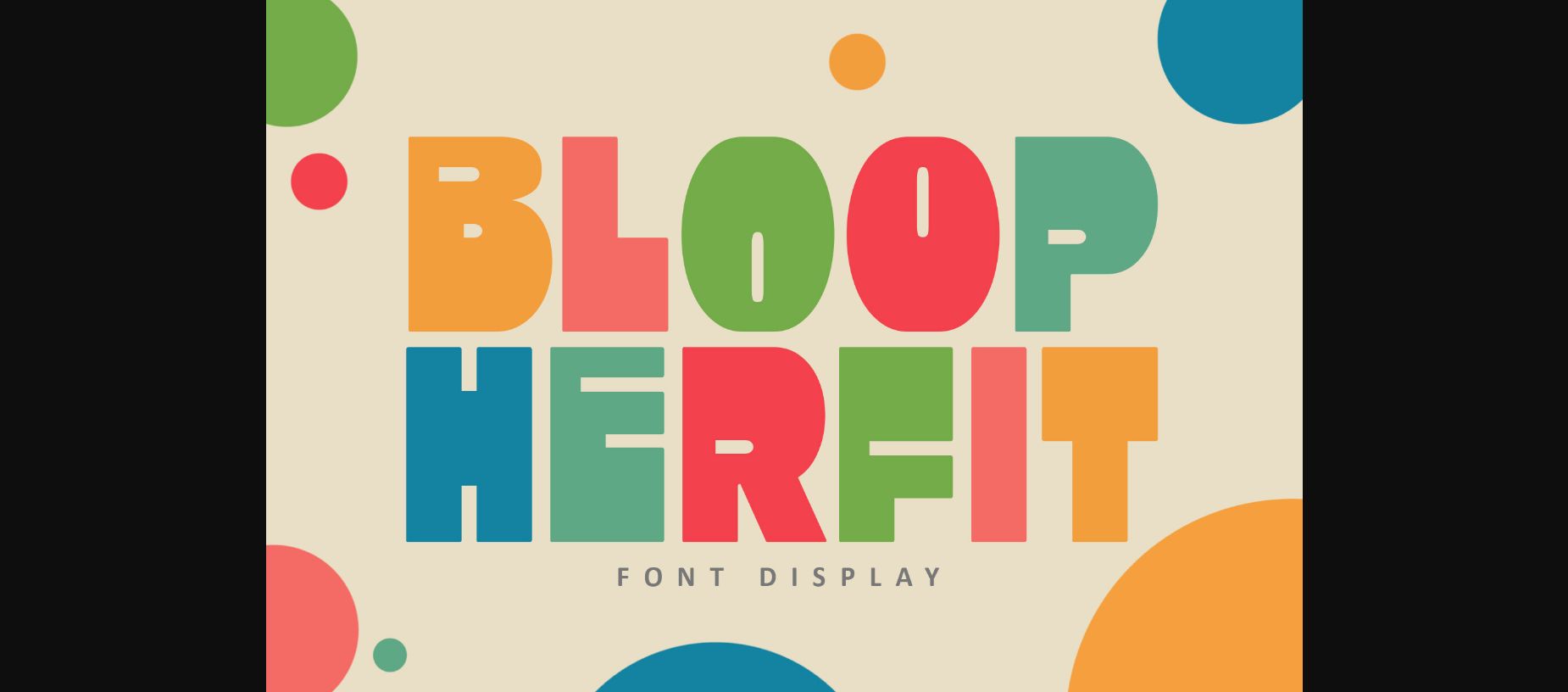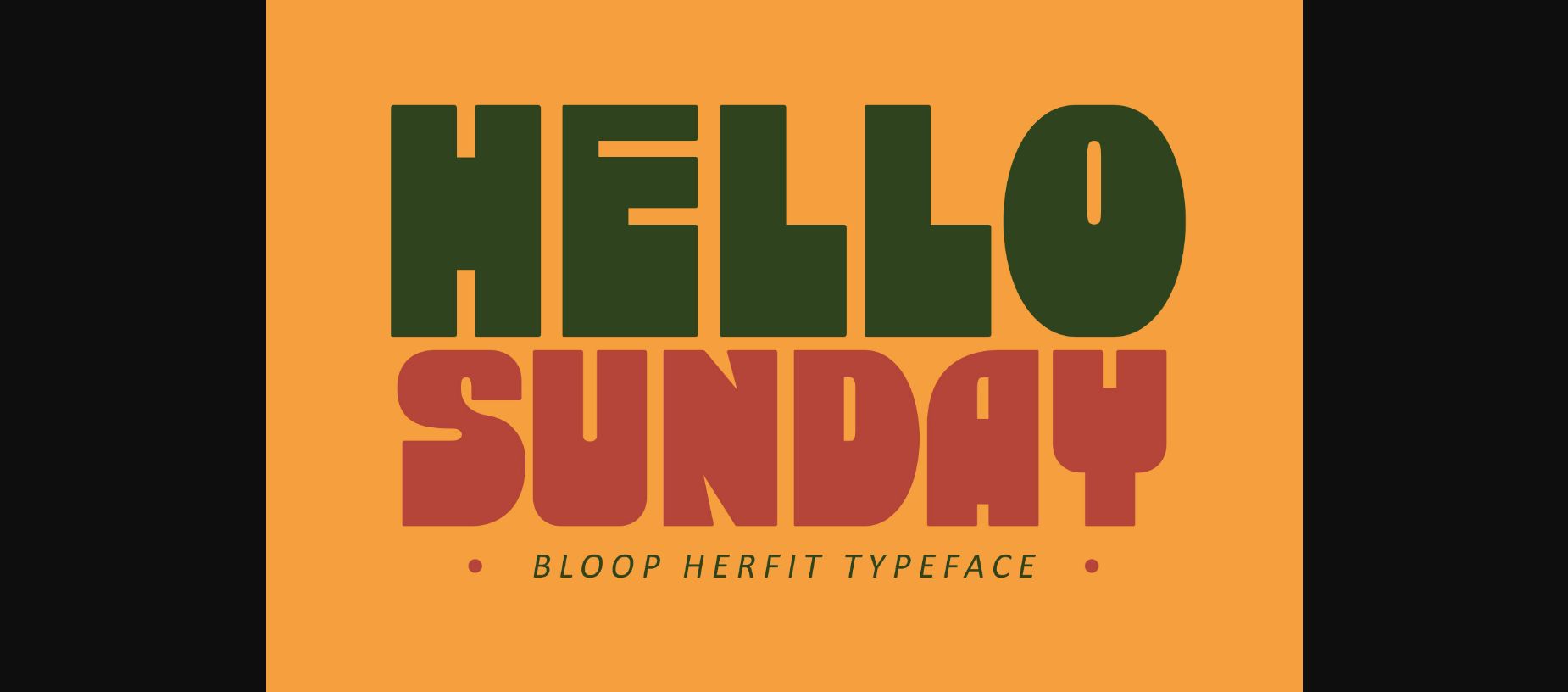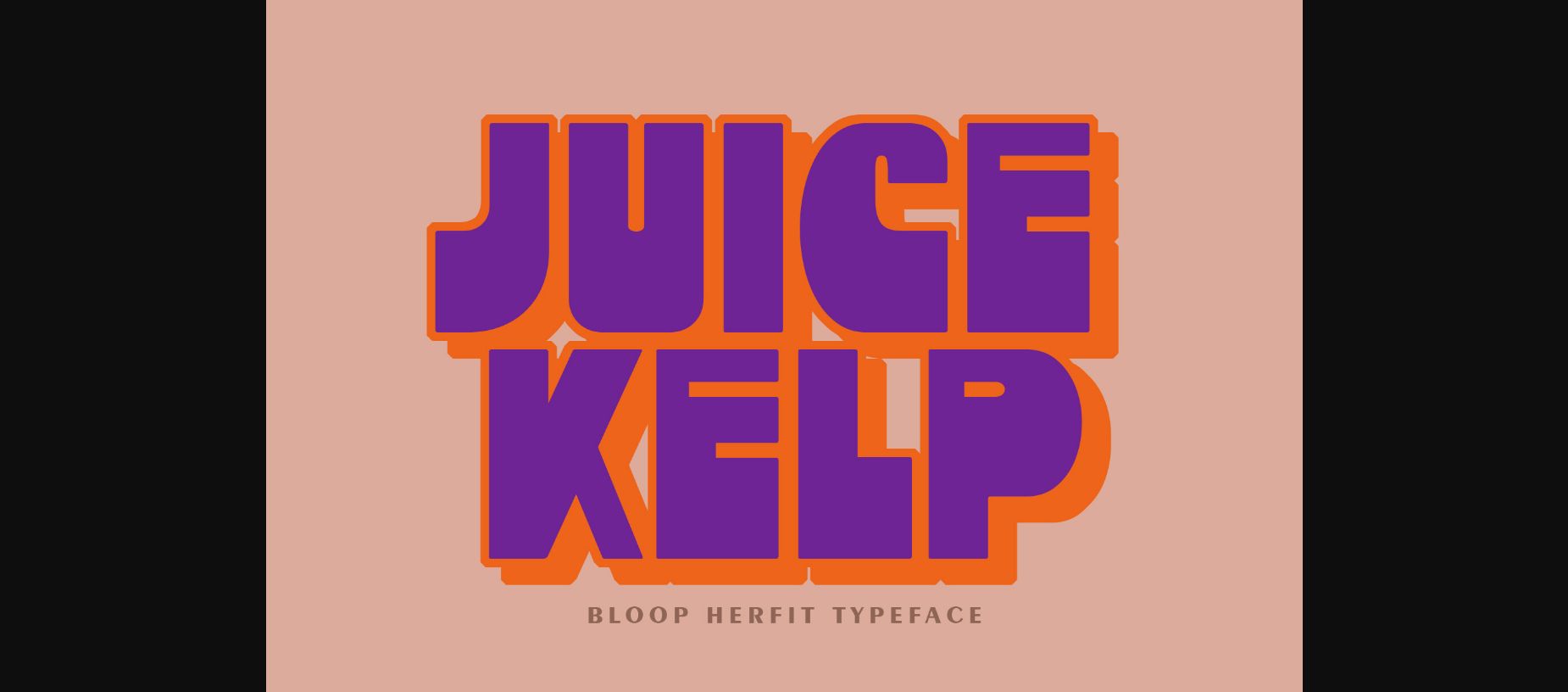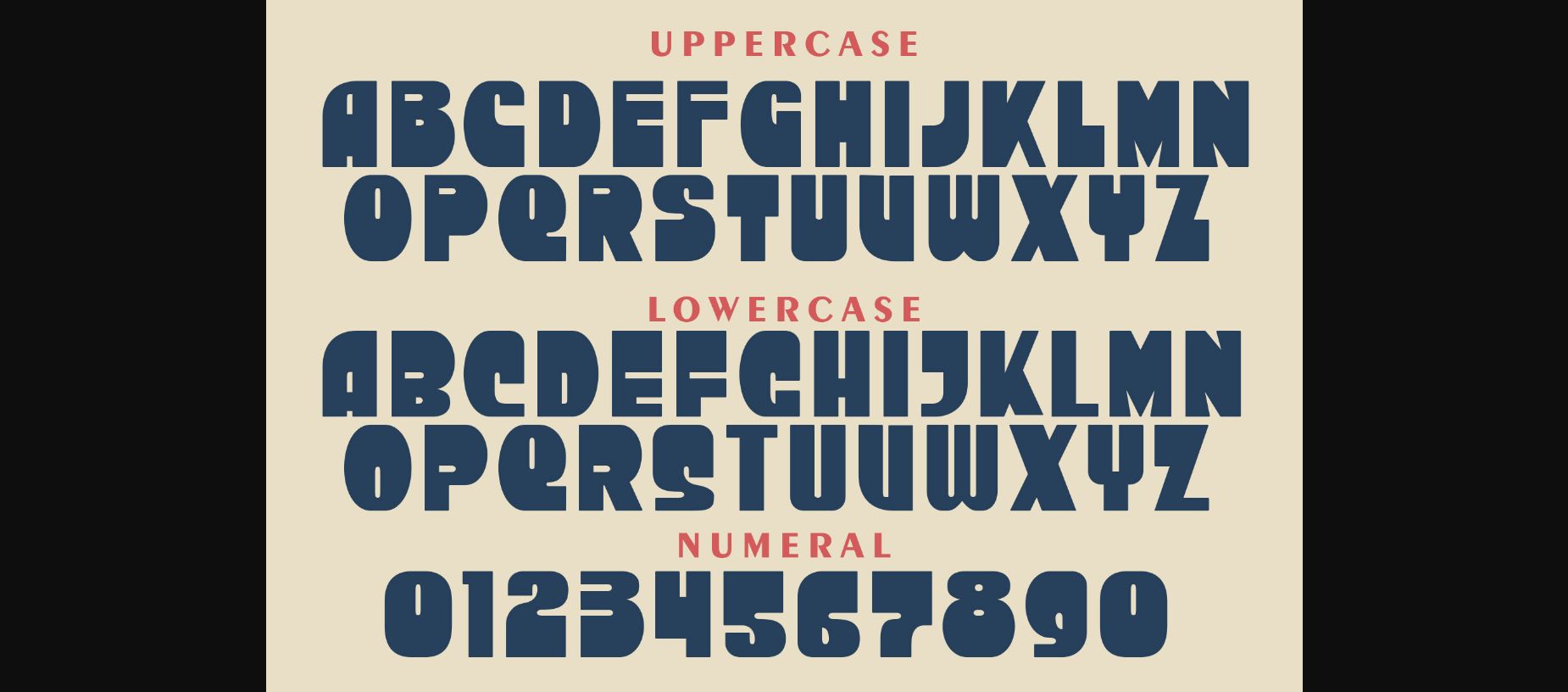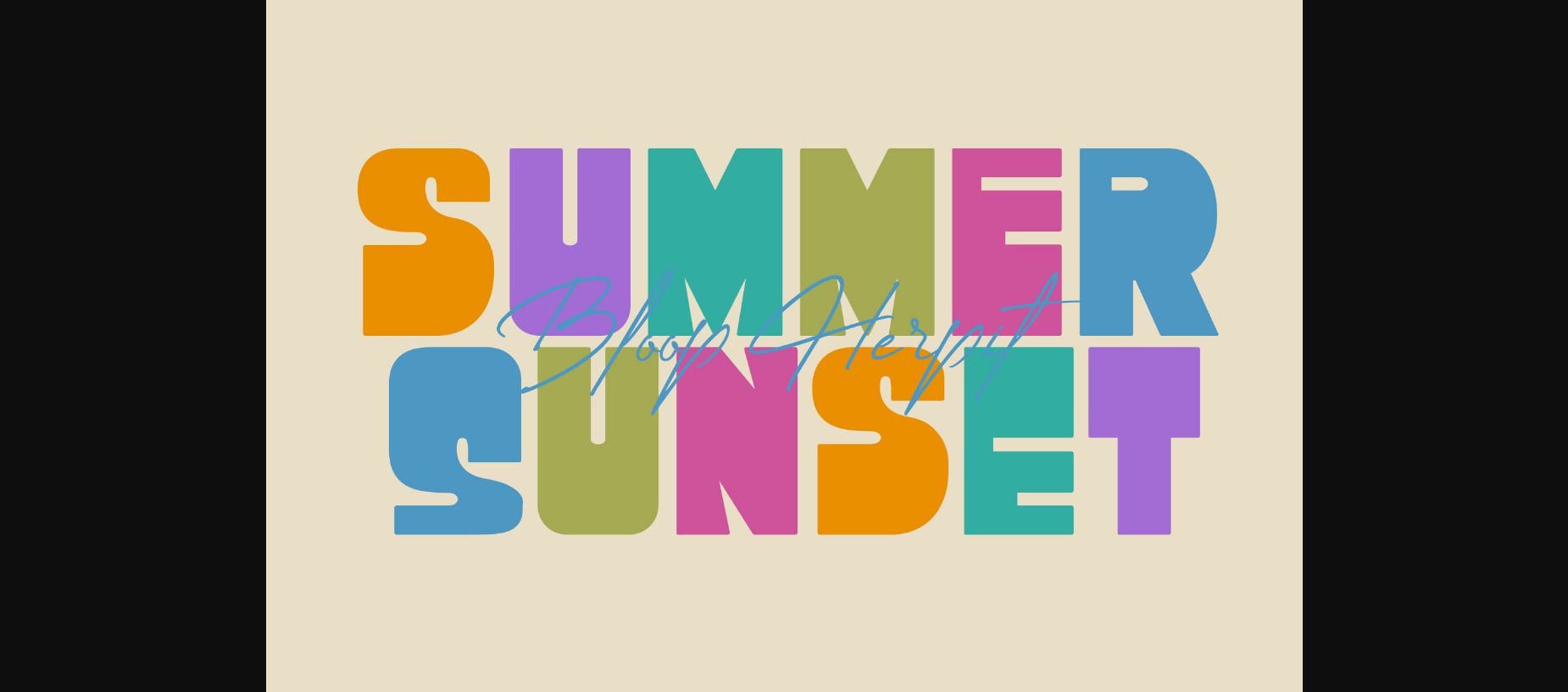
Bloop Herfit Font
About Bloop Herfit Font
Bloop Herfit is a cute and charming display sans serif font. Whimsical and a bit quirky, this font will brighten up each of your designs. Add it confidently to your projects, and you will love the results.